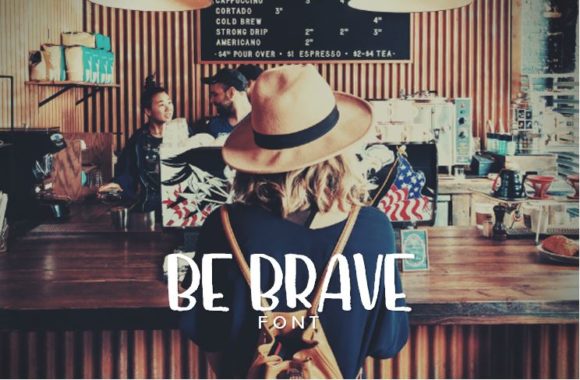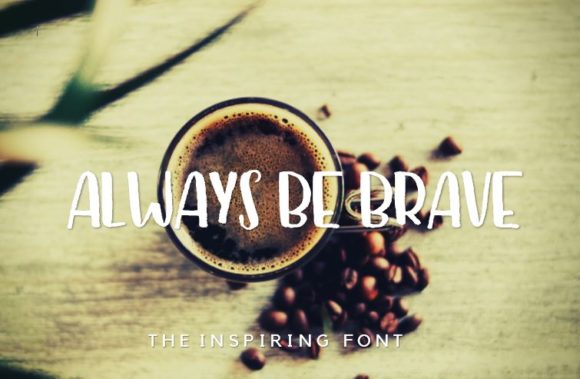
HomeScript FontsBe Brave Font Script Fonts Be Brave Font FacebookXPinterestWhatsApp Be Brave Font Poster 2 About Be Brave Font Be Brave is a fun and cute handwritten font with a whimsical charm. Get inspired by its adorable elements! DOWNLOAD ON CREATIVE FABRICAThis font is sold and delivered by Creative Fabrica. Font Canyon may earn a commission if you buy through this link. People also explored That Rainbow Font Low Tide Handwritten Font Blumen Paradise Font Reagen Youth Font Callistha Font Rainy Winter (single Line) Font Fortnite Font Ornamen Font Chalkaholic 269 0 TagsBe Brave Font Previous articleDream Meadow FontNext articleMillow Font LEAVE A REPLY Cancel reply Comment: Please enter your comment! Name:* Please enter your name here Email:* You have entered an incorrect email address! Please enter your email address here Website: Save my name, email, and website in this browser for the next time I comment. Personal Use Free Muthiara Font Personal Use Free Read more about this font Airmole Personal Use Free Read more about this font Jellia Personal Use Free Read more about this font Vincent Familiante Personal Use Free Read more about this font BLOG Fonts That Capture the Spirit of New York City New York City is more than just a place—it’s an experience, a rhythm, a visual language... Where to Buy American Fonts Online in 2024 Free vs Paid Fonts: Why Investing in Premium Fonts Is Worth It 5 Fonts That Will Dominate Design Trends in 2026